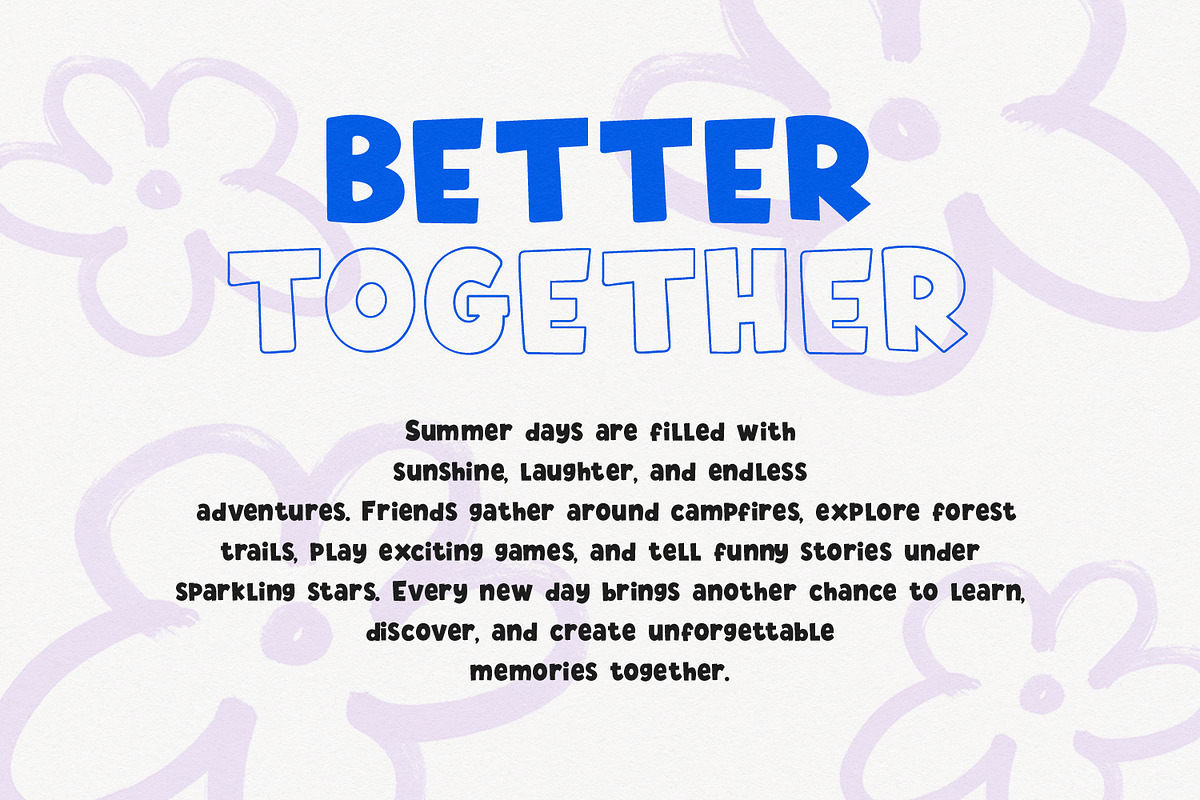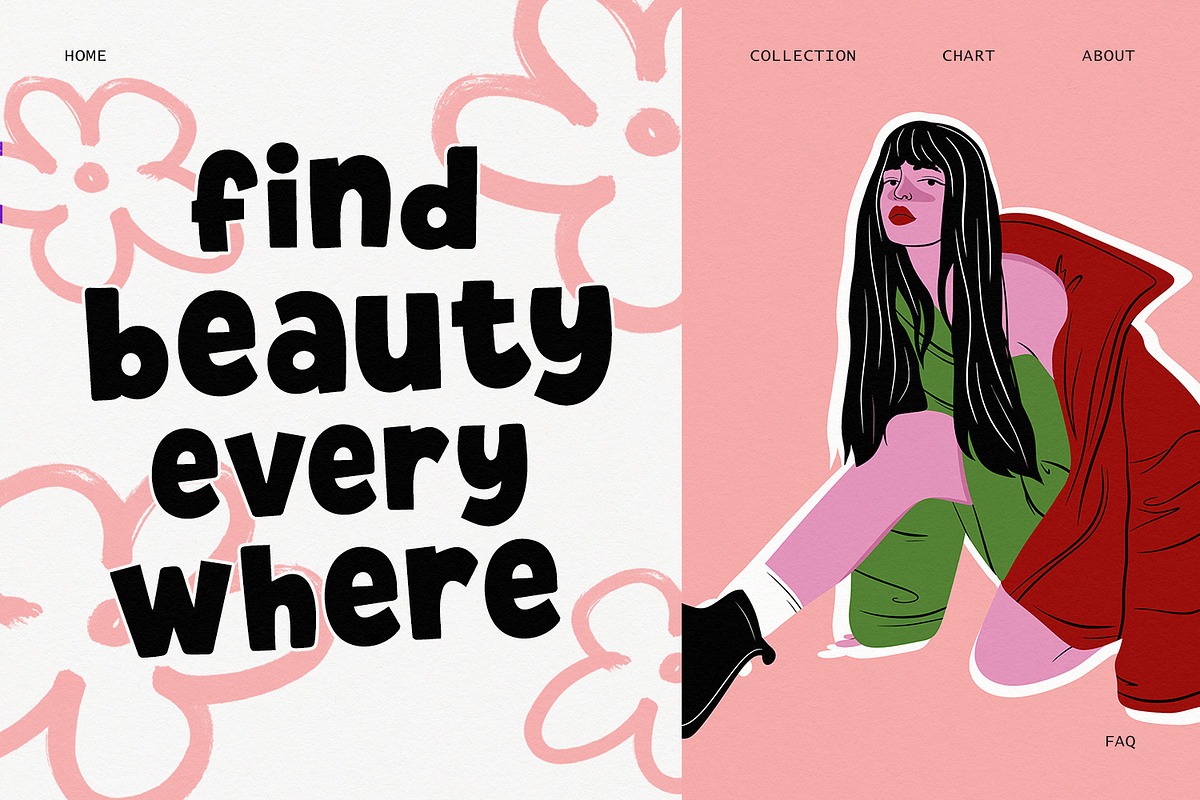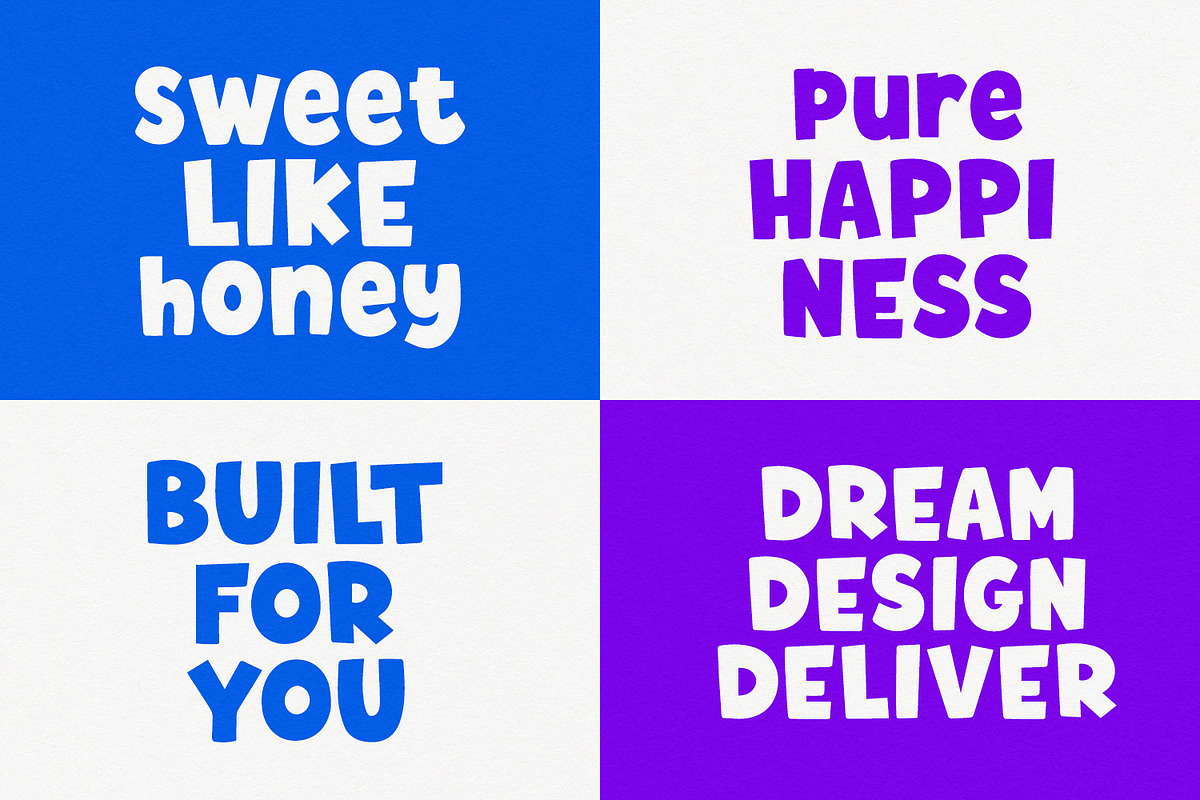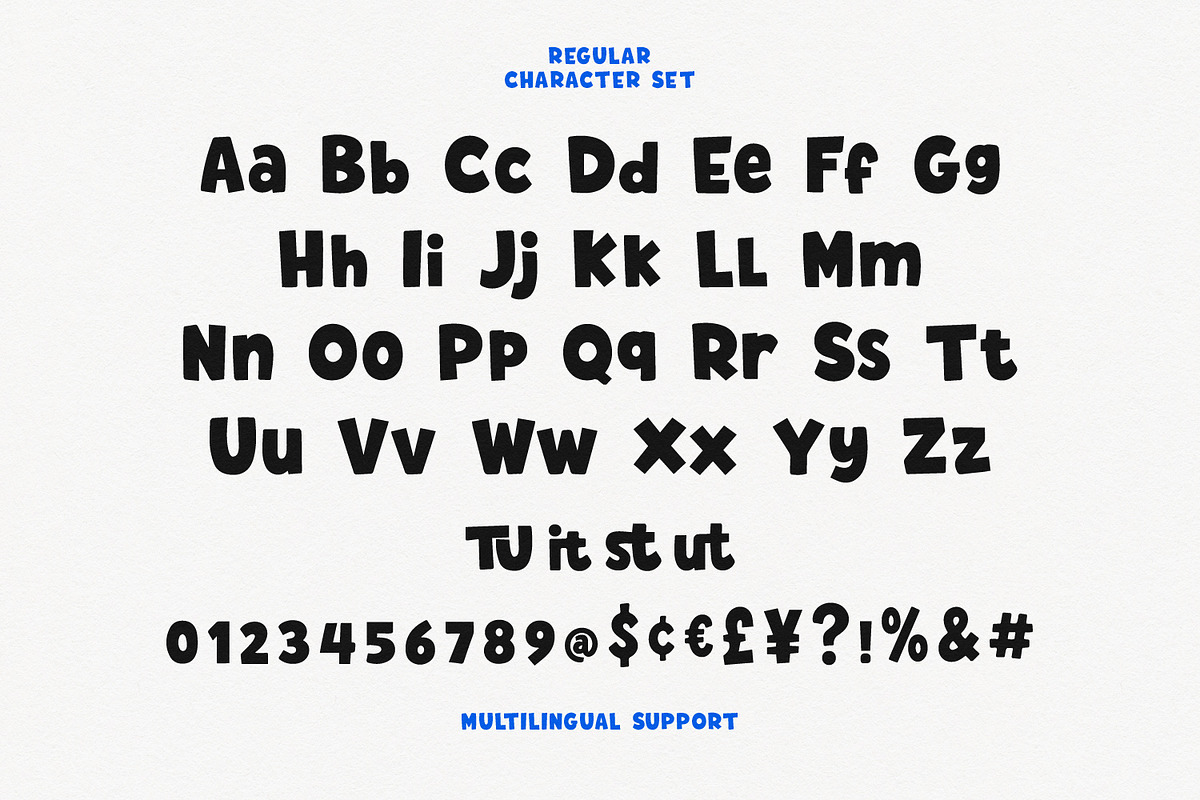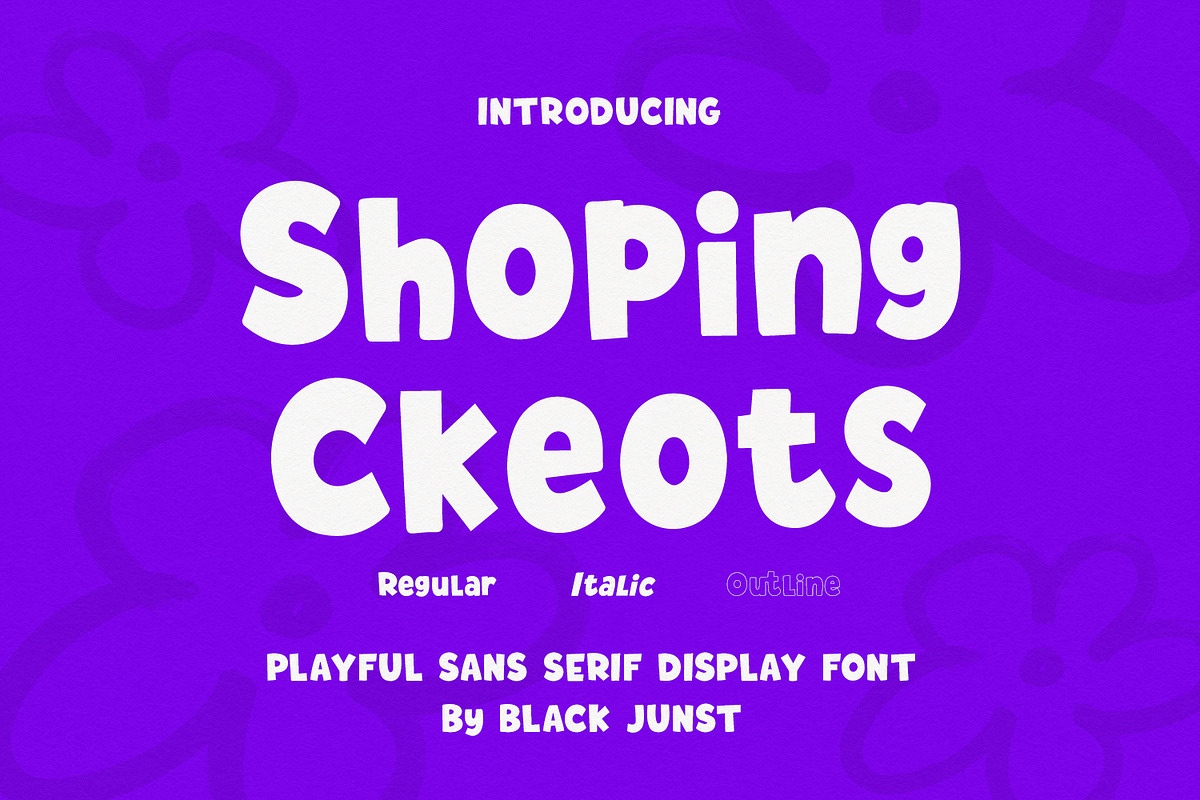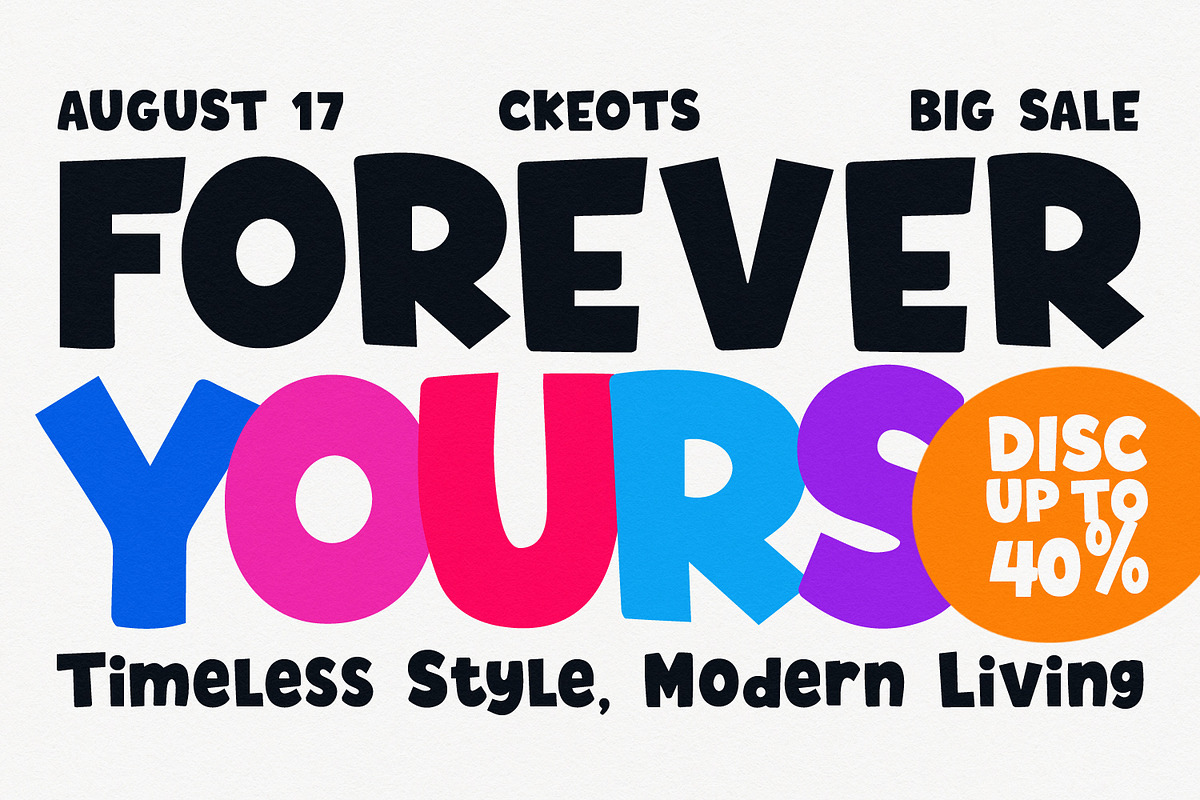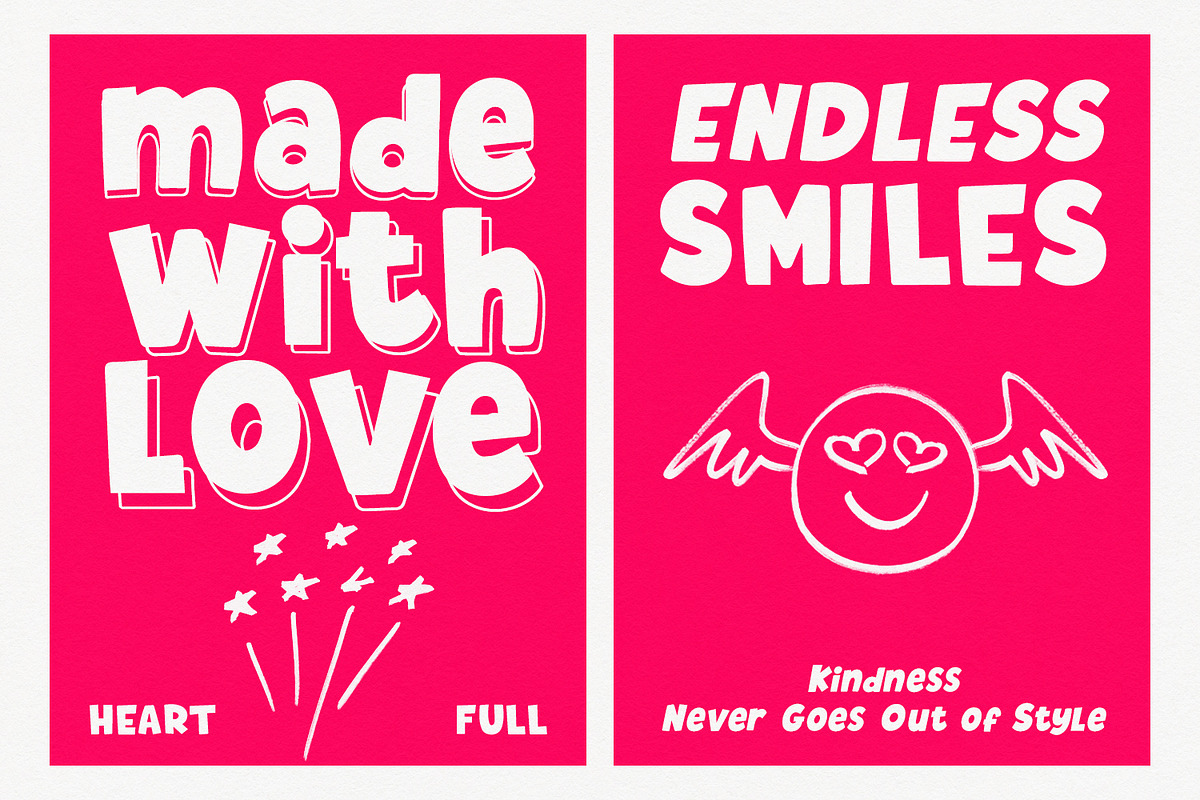
Shoping Ckeots
Shoping Ckeots – Playful Handmade Sans Serif Display Font
Shoping Ckeots is a bold playful handmade sans serif display font designed to make your designs feel fun, cheerful, and full of personality. Featuring soft rounded shapes with handcrafted imperfections, this typeface creates a friendly and eye-catching look that works beautifully for children's brands, snack packaging, toy products, posters, logos, social media graphics, and creative branding.
With 3 versatile styles (Regular, Italic & Outline), Shoping Ckeots gives you the flexibility to mix solid and outline lettering, create layered typography, and build unique display compositions effortlessly.
Whether you're designing for playful businesses, food packaging, birthday invitations, YouTube thumbnails, school projects, or modern branding, this font delivers a warm handmade appearance that instantly grabs attention.
Kids Branding
Food Packaging
Snack Labels
Toy Packaging
Cartoon Titles
Children's Books
Posters
T-Shirt Design
Stickers
Social Media
YouTube Thumbnails
Café & Bakery Branding
Event Promotions
Italic
Outline
Shoping Ckeots is the perfect choice for designers looking for a fun, bold, handmade display font that brings joyful energy to every project.